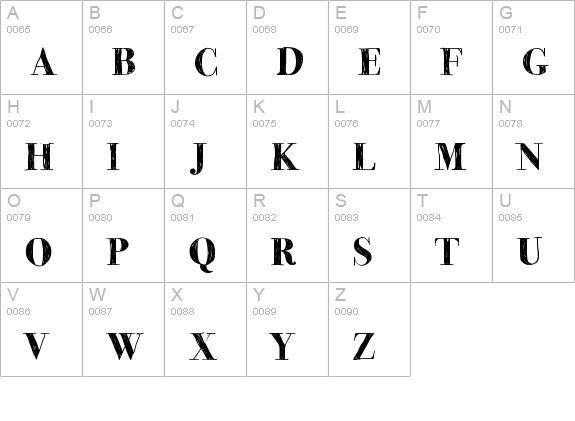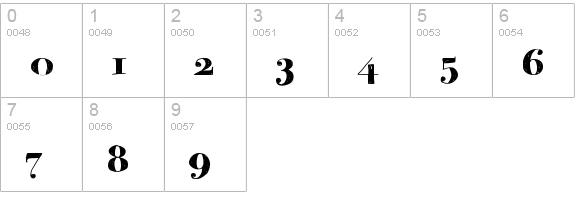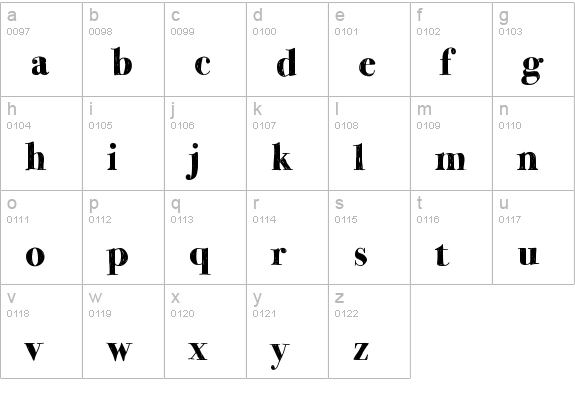
MomsDiner Font Details
MomsDiner font is a charming and nostalgic typeface that brings back the warm and cozy feeling of mom's homemade cooking. This delightful font is perfect for adding a touch of retro flair to any design project, whether it's a menu for a cozy diner, a recipe book, or a vintage-inspired logo. With its playful curves and bold strokes, MomsDiner font captures the essence of a bygone era, evoking memories of family gatherings and delicious meals shared around the kitchen table. Its friendly and inviting letterforms make it a versatile choice for a wide range of applications, from signage and packaging to social media graphics and website designs. But what makes MomsDiner font truly special is that it is absolutely free! That's right, this delightful typeface can be freely downloaded at FontsMarket.com. So whether you're a professional designer or a hobbyist, you can enjoy the benefits of this charming font without breaking the bank. Don't miss the opportunity to add a touch of vintage charm to your designs with MomsDiner font. Download it for free at FontsMarket.com and let your creativity run wild.